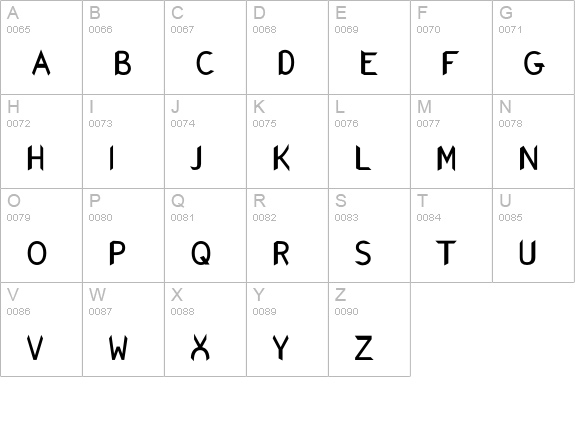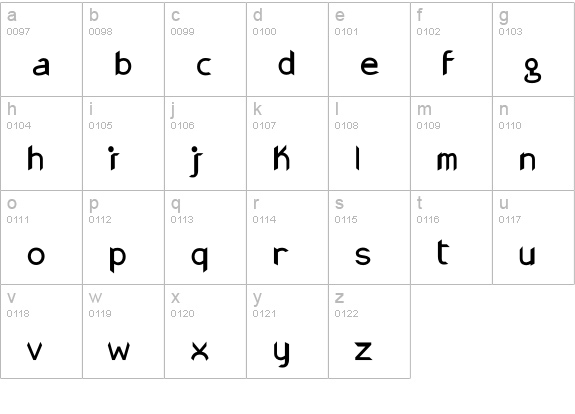
Gonza-Bold is a strong, high-contrast variant in the Gonza typeface family \xE2\x80\x94 well suited to headlines, attention-grabbing titles, and strong calls-to-action.
Gonza-Bold is a modern and striking font that exudes confidence and elegance. With its bold and clean lines, this font is perfect for making a statement in any design project. Whether you're creating a poster, logo, or website, Gonza-Bold will make your text stand out with its strong presence. The best part? Gonza-Bold is completely free to download at FontsMarket.com, making it accessible to all designers looking to add a touch of sophistication to their work. Don't miss out on this versatile and stylish font that will elevate your designs to the next level. Download Gonza-Bold today and watch your projects come to life with its bold and impactful aesthetic.